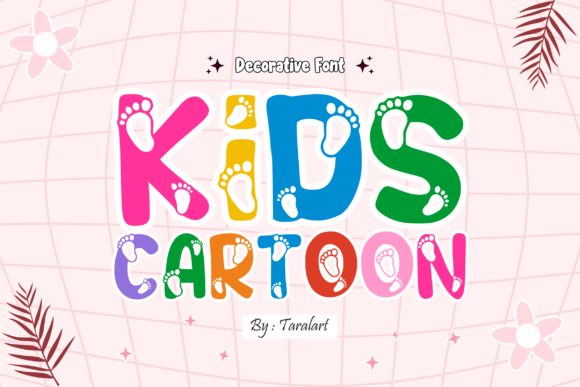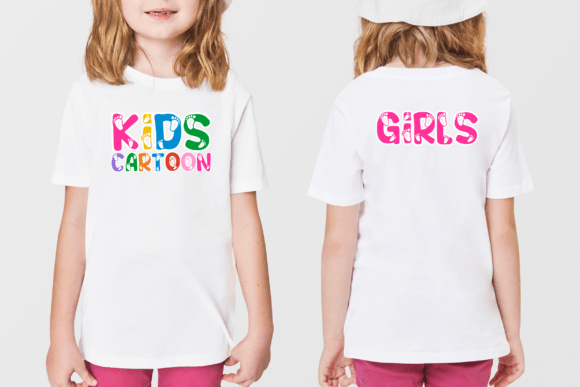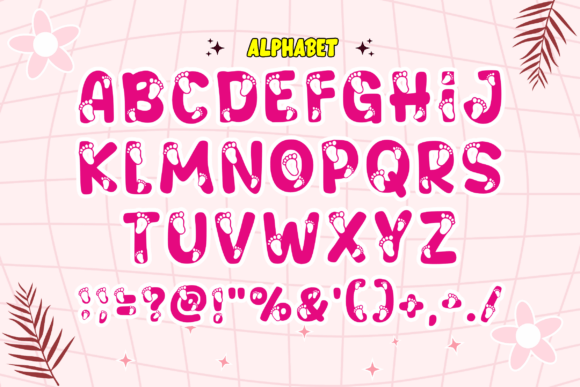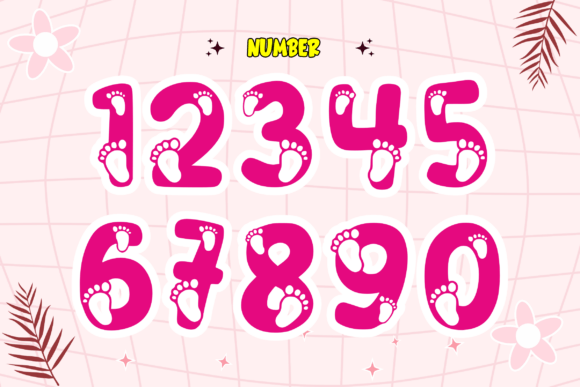
Baby Birthday Font: The Cutest Decorative Font for Your Little One’s Special Day
Are you looking for a unique and adorable font to make your baby’s birthday designs stand out? Look no further than the Baby Birthday font! This charming decorative font is specifically designed for babies, featuring a child’s foot icon for each character, making it easy to recognize and utterly cute.
What Makes Baby Birthday Font So Special?
The Baby Birthday font is perfect for creating sublimation designs for various products, such as t-shirts, mugs, tote bags, animations, comic titles, and more. Its distinctive child-themed design makes it an excellent choice for:
- Baby birthday party decorations and invitations
- Custom baby clothes, accessories, and nursery decor
- Personalized gifts, such as mugs, water bottles, and tote bags
- Digital designs, including animations, comics, and children’s book titles
Key Features of Baby Birthday Font
Here are some of the key features that make Baby Birthday font a must-have for designers and crafters:
- Unique Character Design: Each character in the Baby Birthday font features a child’s foot icon, making it instantly recognizable and adorable.
- High-Quality Design: The font is carefully crafted to ensure high-quality and clear rendering, even at small sizes.
- Versatile: Baby Birthday font can be used for a wide range of design projects, from digital to print.
Tips and Tricks for Working with Baby Birthday Font
Here are some tips and tricks to help you get the most out of Baby Birthday font:
- Experiment with Colors: Try pairing the Baby Birthday font with bright, pastel colors to create a playful and festive look.
- Mix and Match: Combine Baby Birthday font with other fonts to create a unique and eye-catching design.
- Pay with Patterns: Add patterns, such as polka dots or stripes, to create a visually interesting design.